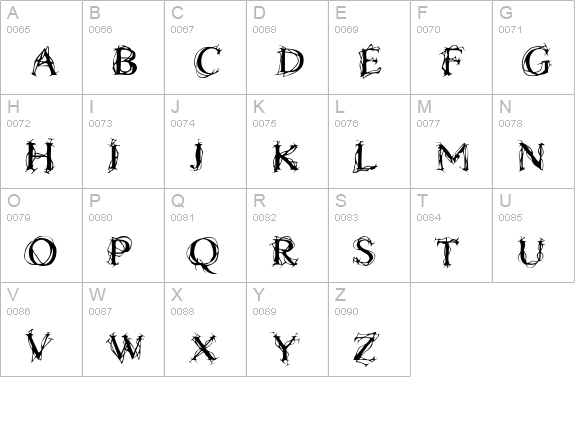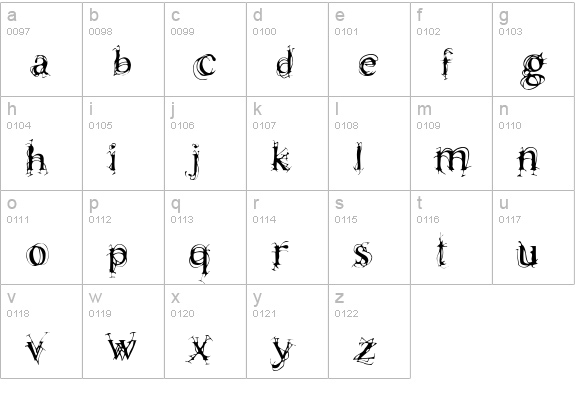
Chaos Times Light is a refined, elegant variant in the Chaos typeface family \xE2\x80\x94 well suited to elegant body text, refined sub-headings, and luxury branding.
Chaos Times Light font is a modern and stylish typeface that combines the elegance of Times New Roman with a touch of chaos and creativity. The sleek lines and sophisticated curves of this font make it perfect for a variety of design projects, from branding to editorial layouts. This unique font is designed to make a statement and capture the attention of your audience. With its bold yet refined appearance, Chaos Times Light font is sure to add a touch of sophistication to any project. Best of all, Chaos Times Light font is available for free download at FontsMarket.com. So go ahead and unleash your creativity with this stunning and versatile typeface!